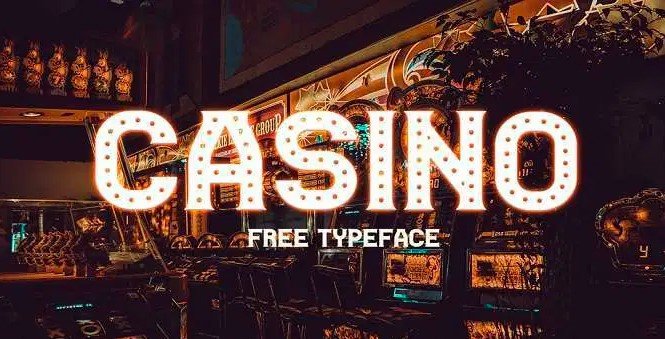
Casino Font
This font contains all types of punctuators, ligatures, uppercase, and lowercase characters which you can easily use in any kind of work that you want.
About Casino Font
Presenting the Casino Font typeface, a premium retro textured font developed by Vladimir Nikolic. This amazing font is freely available for both personal and commercial projects.
This font contains all types of punctuators, ligatures, uppercase, and lowercase characters which you can easily use in any kind of work that you want.
This typeface has great popularity around the world and having millions of searches on google. Most of the experienced graphic designs used this font in creating digital designs and retro designs with this font.
What Type of Font Is Casino?
The Casino Font is the famous and amazing typeface which was product of the combination Vladimir Nikolic.